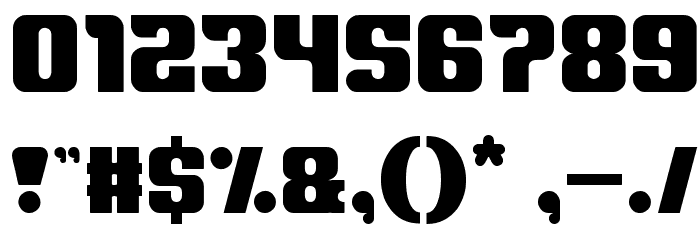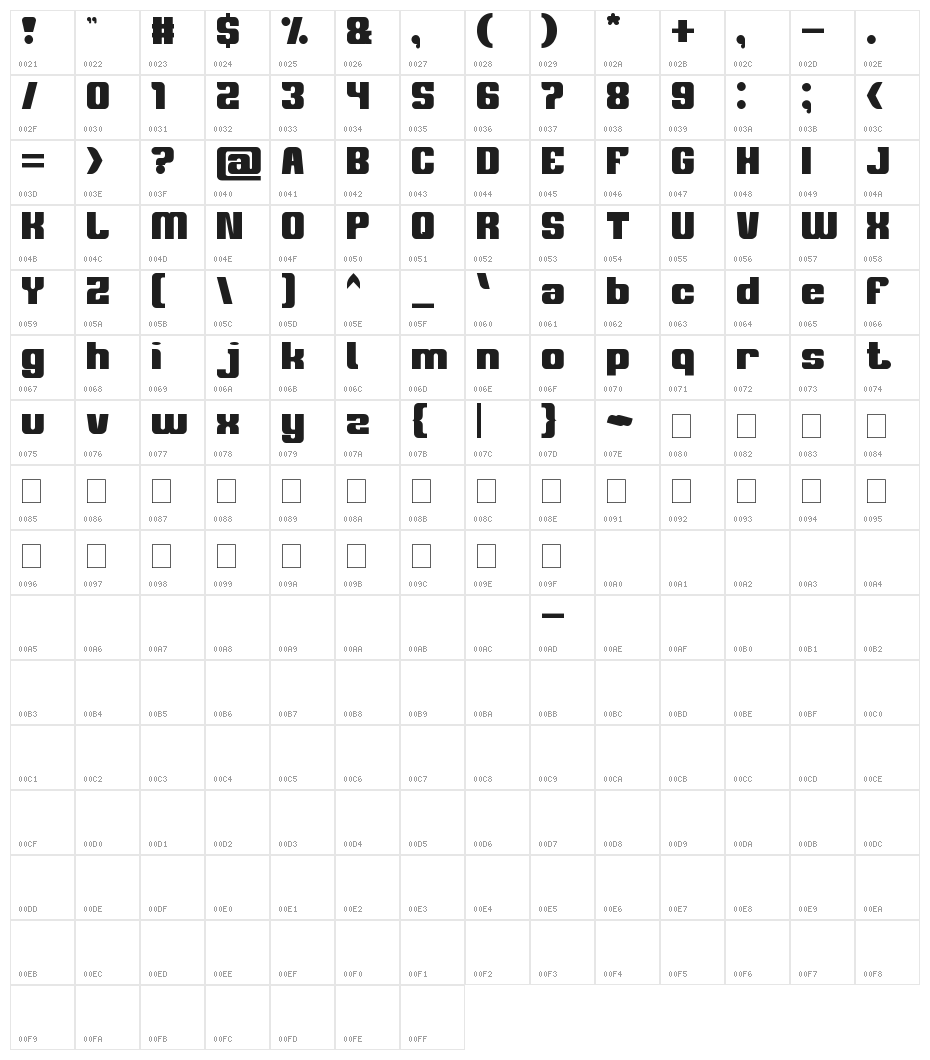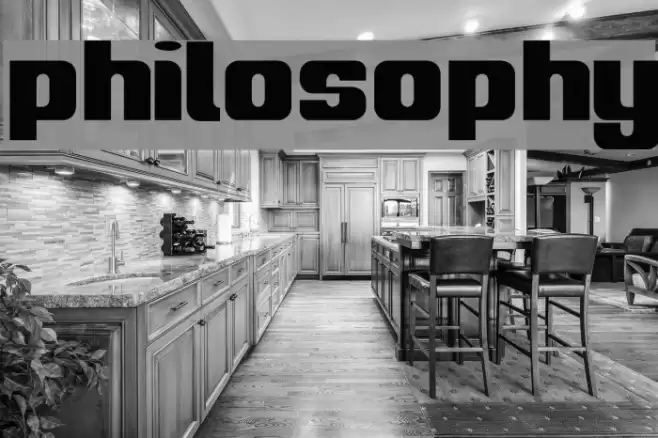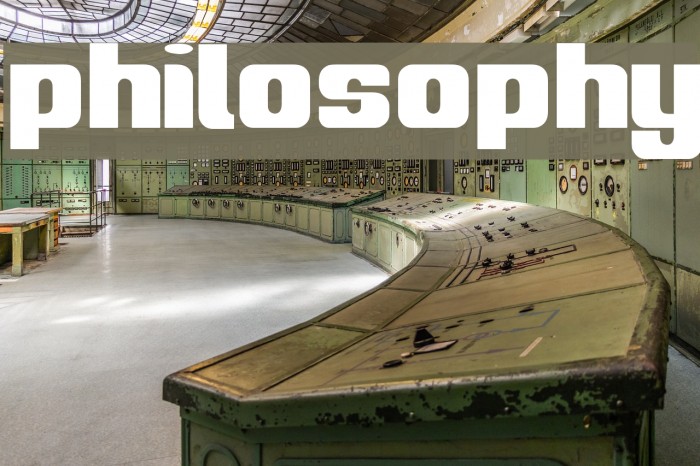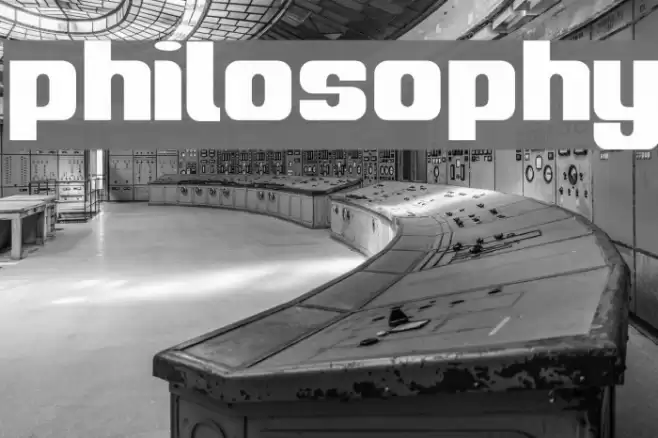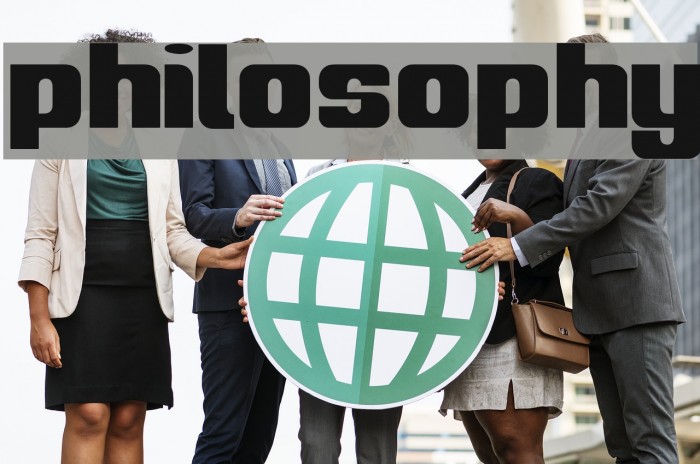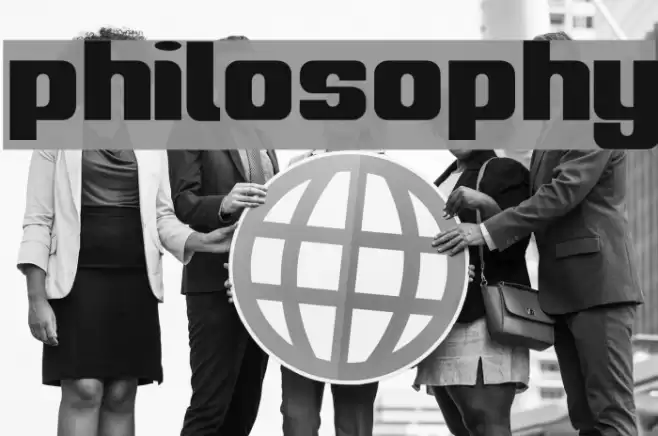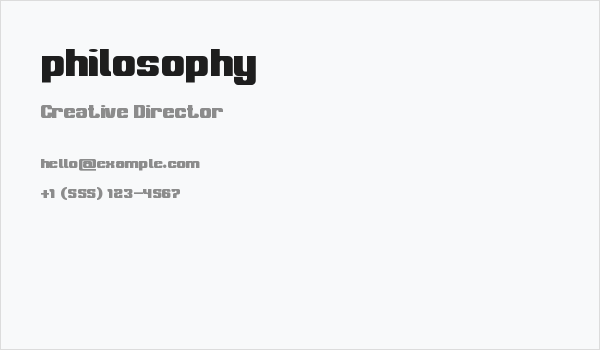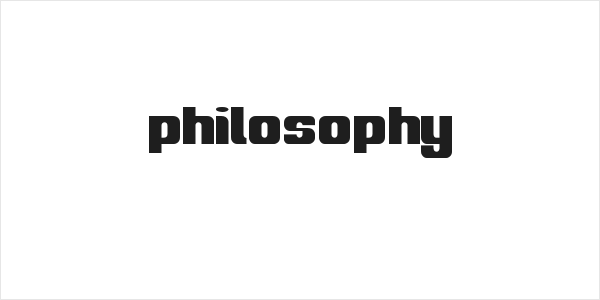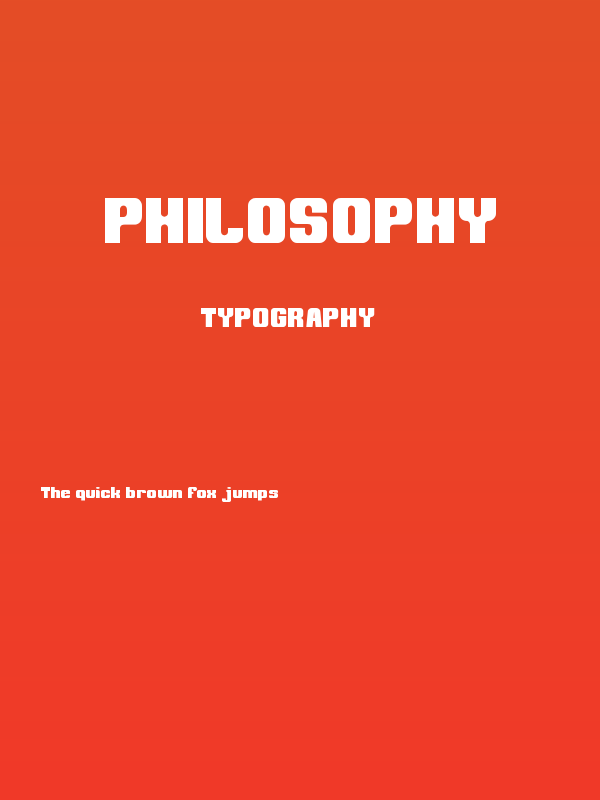
philosophy Font
philosophy Description
This font features bold, geometric letterforms with a strong presence. The characters are blocky and robust, with a uniform stroke width that gives them a solid and impactful appearance. The uppercase letters are particularly striking, with their wide, rectangular shapes and minimal curves. The lowercase letters maintain the same boldness, with rounded edges that soften the overall look slightly. Numbers and special characters follow the same design principles, ensuring consistency across all glyphs. This font's style is reminiscent of industrial or retro designs, making it suitable for projects that require a bold and assertive typeface.
| Overall Style | Retro, Industrial |
| Proposed Projects | Ideal for posters, logos, branding, and headlines that require a bold statement. |